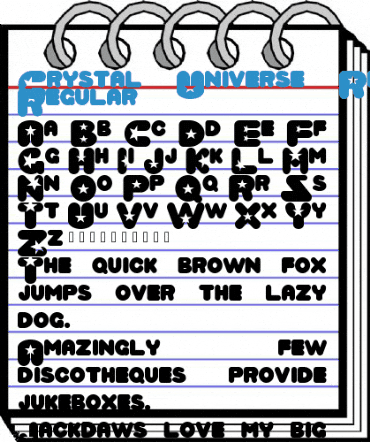
Crystal Universe Regular Font
Crystal Universe is a font that replicates the font used for the logo of the animated television show Steven Universe (tm).
Steven Universe (tm) was created by Rebecca Sugar.